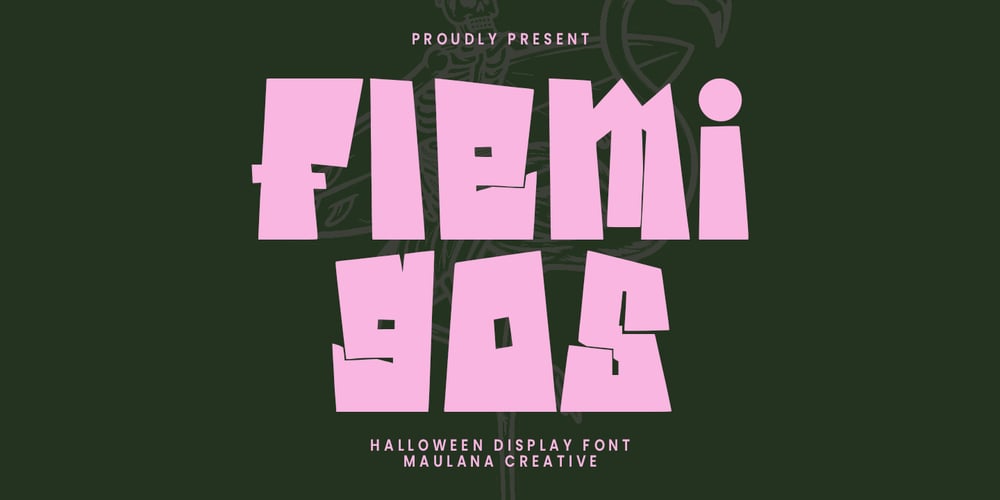
MC Flemigos Font Family was designed by Gilang Maulana and published by Maulana Creative. MC Flemigos contains 1 styles and family package options. Flemigos halloween display font. Heavy stroke, fun character with a bit of ligatures. To give you an extra creative work. Flemigos halloween display font support multilingual more than 100+ language. This font is good for logo design, Social media, Movie Titles, Books Titles, a short text even a long text letter and good for your secondary text font with script or serif. Make a stunning work with Flemigos halloween display font. Cheers, Maulana Creative